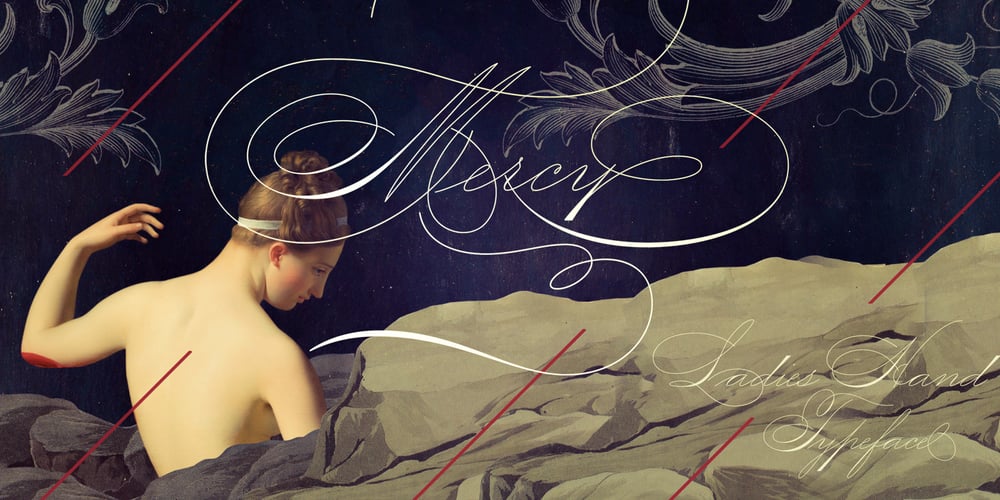
Mercy Font Family was designed by Eduardo Recife and published by Misprinted Type. Mercy contains 6 styles and family package options. This Ladies’ Hand Style font is very (somewhat) similar to ornamental penmanship, but uses slightly longer ascenders and descenders and a modest shading. Originally the Ladies’ Hand had less flourishings, which was ideal for writing long letters. Even though its name suggests it was a feminine writing style, it was widely used by most male penmen and even Spencer reserved the use of the Ladies’ style to write to his close friends and relatives, as he considered it a more sincere and heartfelt style. This present typeface is not restricted to the simplicity of the original Ladies’ Hand Capitals, and has several OpenType features and flourished capitals which create a very versatile typeface, while maintaning the elegance of its style.